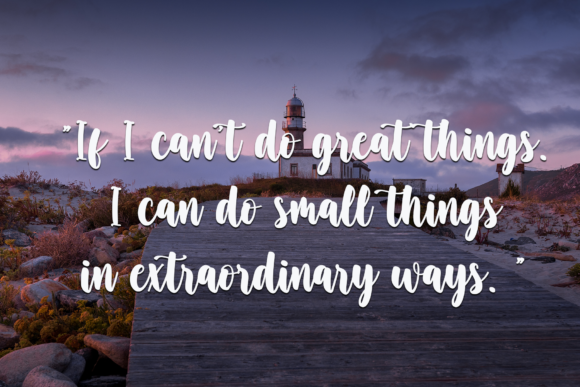
Picture Font
db-ku.com - Script & Handwritten -- Picture is a sweet and delicate handwritten font. Dainty and joyful, this font will be ideal for writing wedding invitations, cards or any other design that may need a romantic, personalized touch! This font is PUA encoded which means you can access all of the amazing glyphs and ligatures with ease!